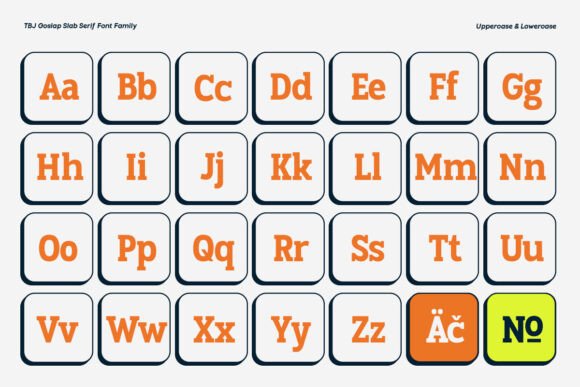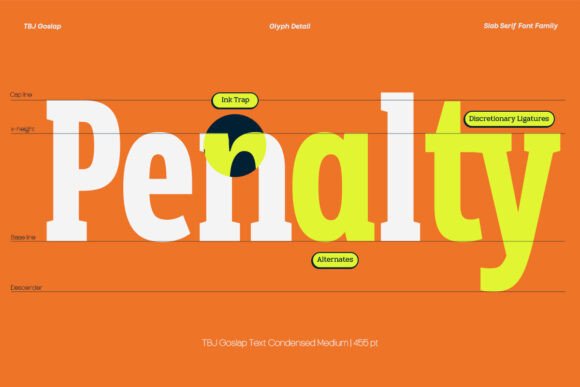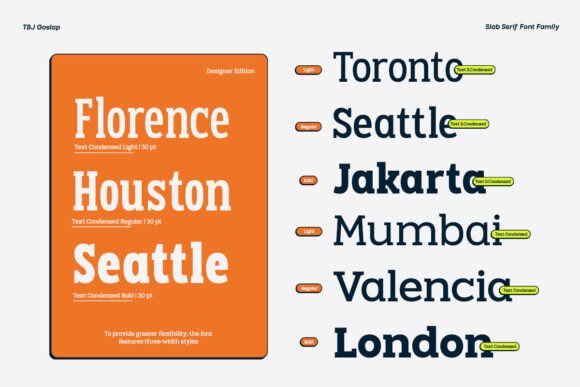
Goslap Font
TBJ Goslap is a modern slab serif font family designed to bring a balance between strength, flexibility and unique character. With a distinctive design, Goslap comes in 9 different styles, allowing designers to customize the thickness and appearance as needed.The main view of this image shows the bold and dynamic character of Goslap. The bold serifs with trapezoidal corners give it a modern and professional touch, making it a perfect fit for branding, editorial, print and digital design. With the Designer Edition version, this font offers OTF, TTF, and Web Font format support, ensuring maximum compatibility across multiple platforms.Goslap is not only strong in visual appearance, but also comes with multi-language support, alternative fonts, and variable fonts, allowing for more expressive and creative designs.